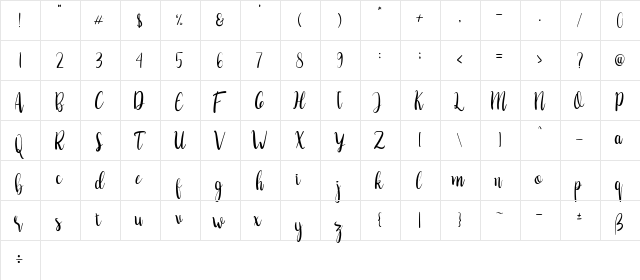
Ambrasto Regular
| Designer | Under21 Studio 2019 |
Design Context for Ambrasto Typeface
Ambrasto is a composed and adaptable typeface that performs quietly and consistently across a wide range of design contexts.